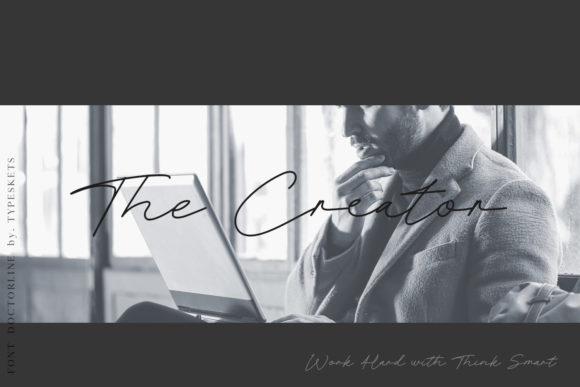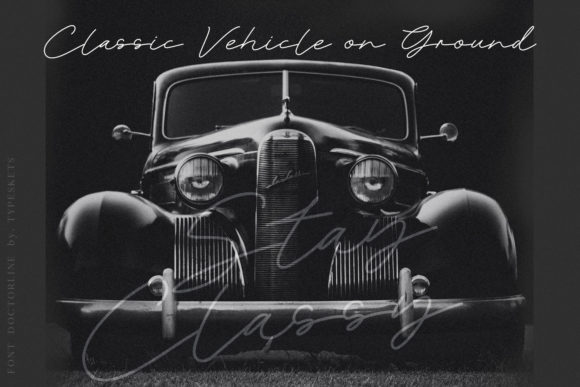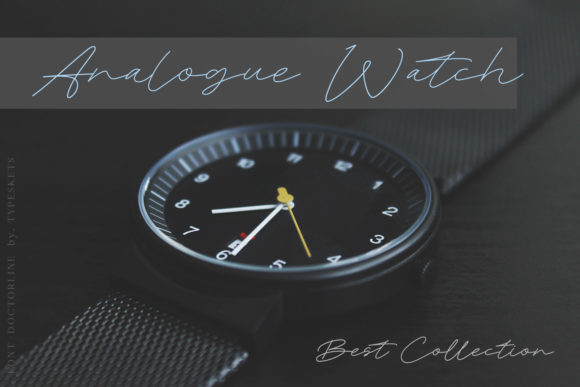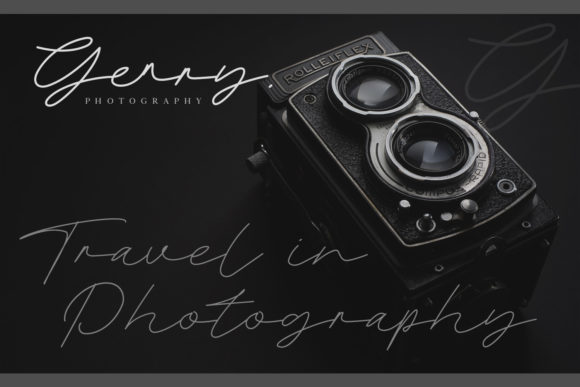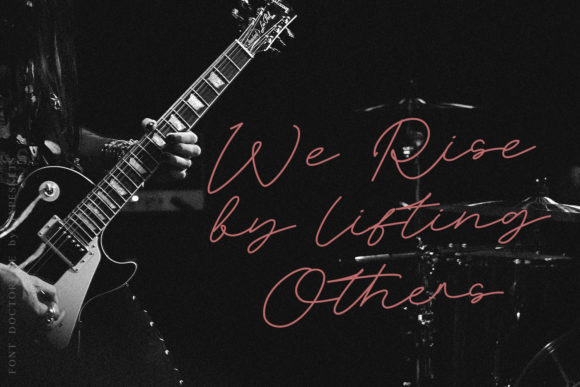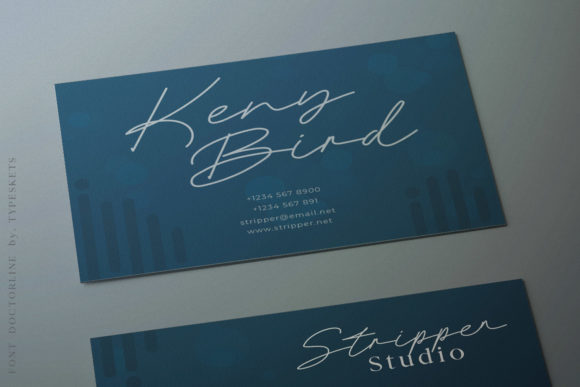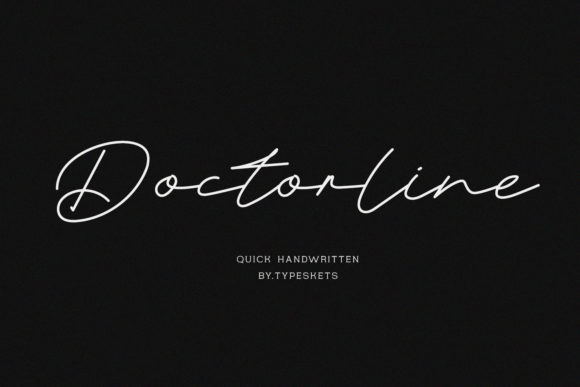
Introducing Doctorline Font: Elevate Your Creativity with Elegant Handwritten Style
Are you a designer, crafter, or DIY enthusiast looking for a font that can add a touch of elegance and sophistication to your creative projects? Look no further than Doctorline Font, a truly outstanding handwritten font that simplifies elegance into one stunning script. In this article, we’ll explore the features and benefits of Doctorline Font, and how it can help you turn your creative ideas into true pieces of art.
What is Doctorline Font?
Doctorline Font is a beautiful, handwritten font designed to bring a touch of elegance and refinement to your creative projects. With its flowing script and delicate lines, this font is perfect for a wide range of applications, from Instagram posts and social media graphics to calligraphy scripts and DIY projects.
Key Features of Doctorline Font
- Elegant Handwritten Style: Doctorline Font features a beautiful, handwritten script that exudes elegance and sophistication.
- Versatile: This font is perfect for a wide range of creative projects, from social media graphics and Instagram posts to calligraphy scripts and DIY projects.
- Easy to Read: Despite its elegant style, Doctorline Font is easy to read, making it perfect for use in both digital and print applications.
- High-Quality: Doctorline Font is a high-quality font that is designed to produce crisp, clear results, even at small sizes.
Benefits of Using Doctorline Font
So why choose Doctorline Font for your creative projects? Here are just a few benefits of using this amazing font:
- Adds Elegance and Sophistication: Doctorline Font adds a touch of elegance and sophistication to any creative project, making it perfect for designers and crafters who want to create high-end results.
- Versatile: This font is versatile and can be used in a wide range of applications, from social media graphics and Instagram posts to calligraphy scripts and DIY projects.
- Easy to Use: Doctorline Font is easy to use, even for those with limited design experience.
- Unique and Creative: With Doctorline Font, you can create unique and creative designs that stand out from the crowd.
Doctorline Font is perfect for designers and crafters who want to add a touch of elegance and sophistication to their creative projects. Whether you’re creating social media graphics, calligraphy scripts, or DIY projects, this font is sure to impress.
| Font Name | Doctorline Font |
| Author | Typeskets |
In conclusion, Doctorline Font is a truly outstanding handwritten font that simplifies elegance into one stunning script. With its flowing script, delicate lines, and versatile design, this font is perfect for a wide range of creative projects. Whether you’re a designer, crafter, or DIY enthusiast, Doctorline Font is sure to help you turn your creative ideas into true pieces of art.